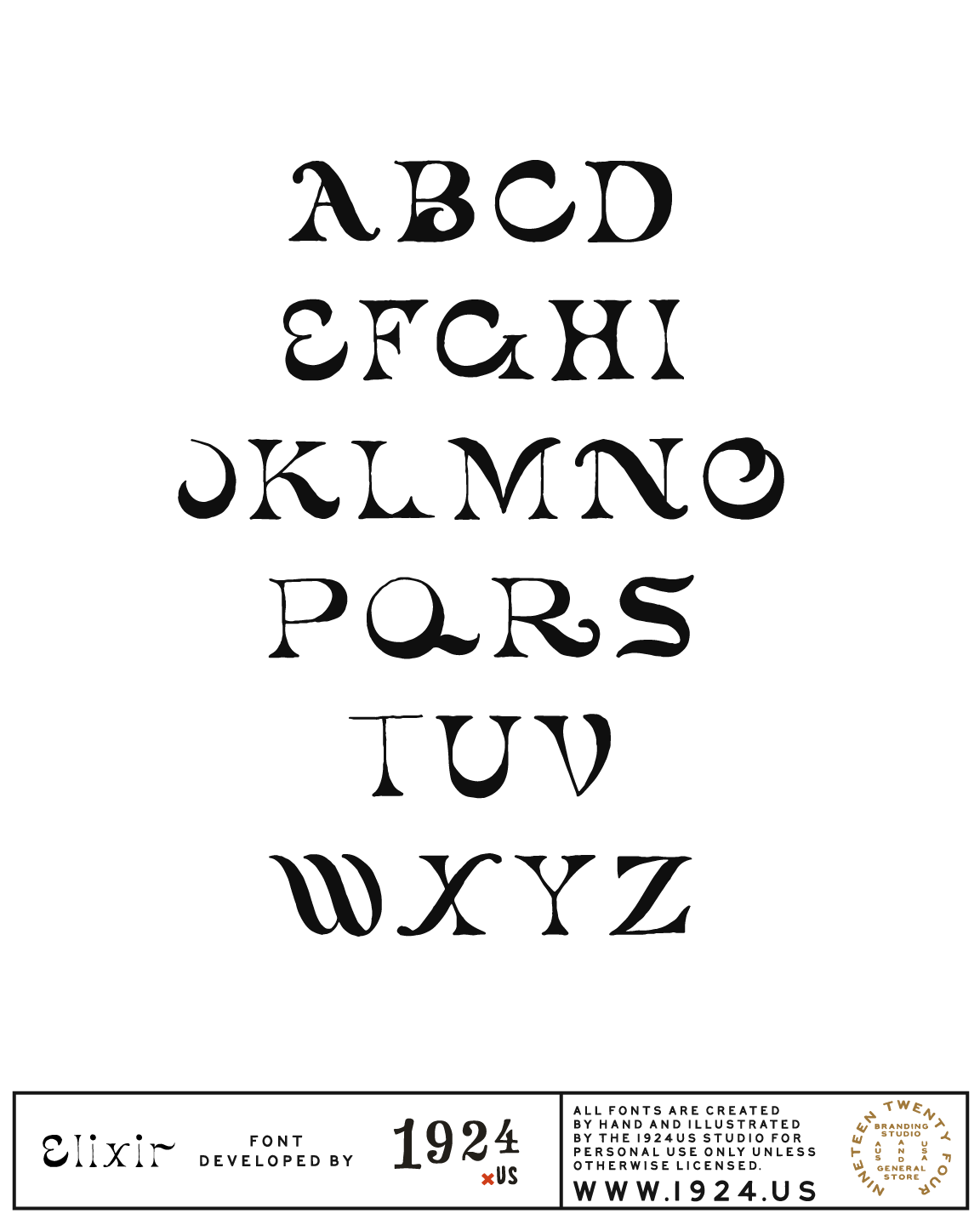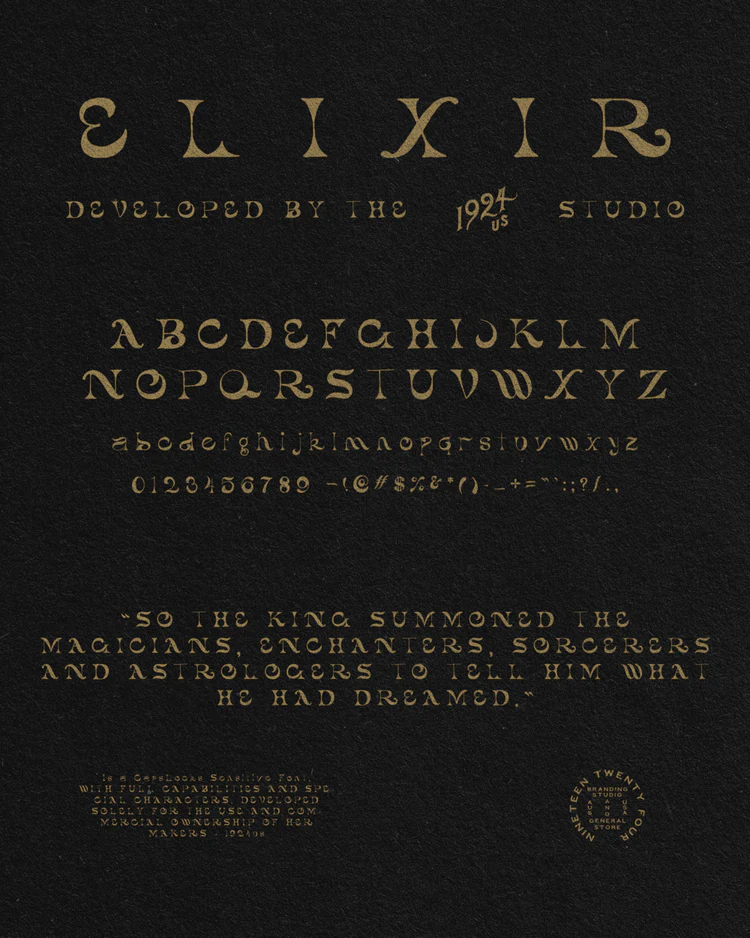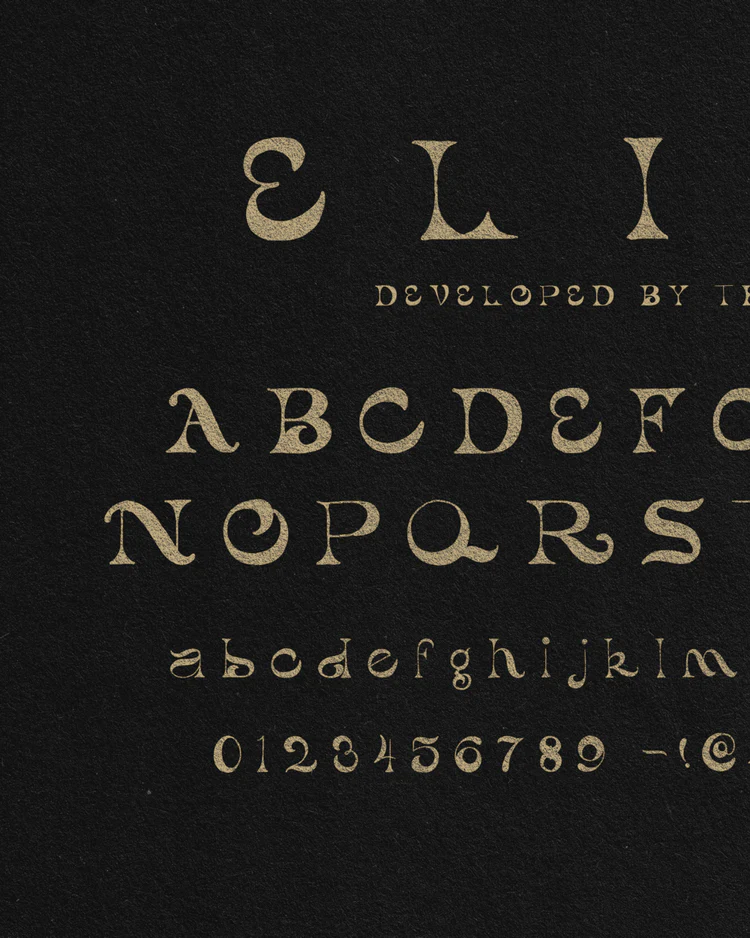
Elixir Font by 1924us
The Elixir font was developed by the 1924 team as an homage to the very, very days of old: back in the medieval times! The font, which showcases a more whimsical (but still quite bold) nuance, is great for personal projects and commercial uses alike. The font is fully functioning and has both sentence and title case available, as well as special characters and numbers included.
The font is developed and built entirely by hand in the 1924us studio in Australia.